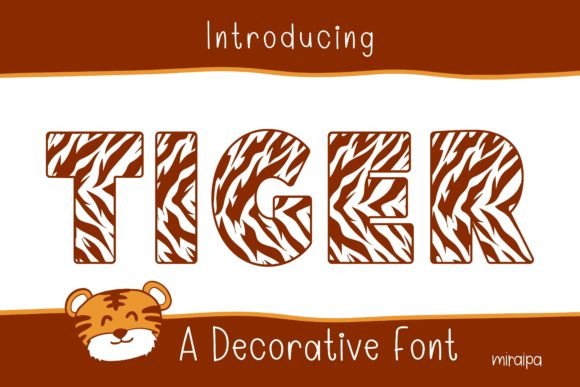
Presenting Tiger Font: A Wildly Adorable Decorative Font for Your Creative Projects!
Dive into the realm of cuteness and charm with Tiger Font, the decorative font that brings a spark of joy and personality to your designs. Inspired by the playful spirit of the wild, Tiger Font dances across your screens with its charmingly imperfect edges and playful curves. This font is not just a collection of letters; it's a menagerie of delightful characters that will infuse your projects with a touch of whimsy and wonder.
As a decorative font, Tiger Font possesses a unique ability to transform ordinary words into captivating works of art. Its carefully crafted glyphs are like tiny masterpieces, each adding a touch of character and personality to your designs. Whether you're creating heartfelt letters, designing invitations for special occasions, or crafting social media posts that demand attention, Tiger Font is your perfect companion.
Imagine the smiles and giggles that will greet you as your loved ones receive letters penned in Tiger Font. Its endearing style adds a personal touch that makes every word feel like a warm embrace. Or picture the delight on your child's face as they discover invitations adorned with Tiger Font, beckoning them to magical parties and unforgettable gatherings.
With Tiger Font at your fingertips, you'll find endless opportunities to express yourself creatively. Use it to design eye-catching posters that command attention, captivating blog posts that invite readers to delve deeper, or stunning greeting cards that convey heartfelt messages. Tiger Font is the perfect choice for adding a touch of whimsy to any creative project.
So, unleash your imagination and let Tiger Font guide you on an artistic adventure! Its playful spirit will ignite your creativity and bring a smile to your face with every use. Don't settle for ordinary fonts; embrace the wild side of design with Tiger Font today!